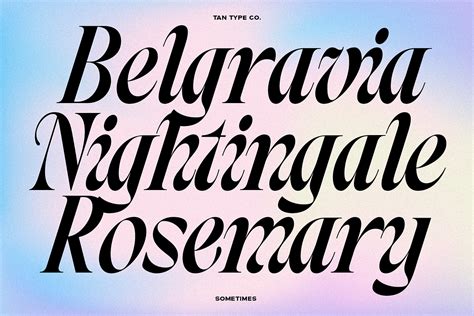
Sometimes Font
Tan Sometimes Font. Tan sometimes is a bold display italic. For any assistance, please contact:
Web typefaces from the tropics! Tan sometimes is a bold display italic. Perfect for any of your design needs. For any assistance, please contact: Tan sometimes font free download. Groovy and gives a retro vibes.
Perfect for any of your design needs. Tan sometimes font free download. Perfect for any of your design needs. Web typefaces from the tropics! Tan sometimes is a bold display italic. Groovy and gives a retro vibes. For any assistance, please contact: